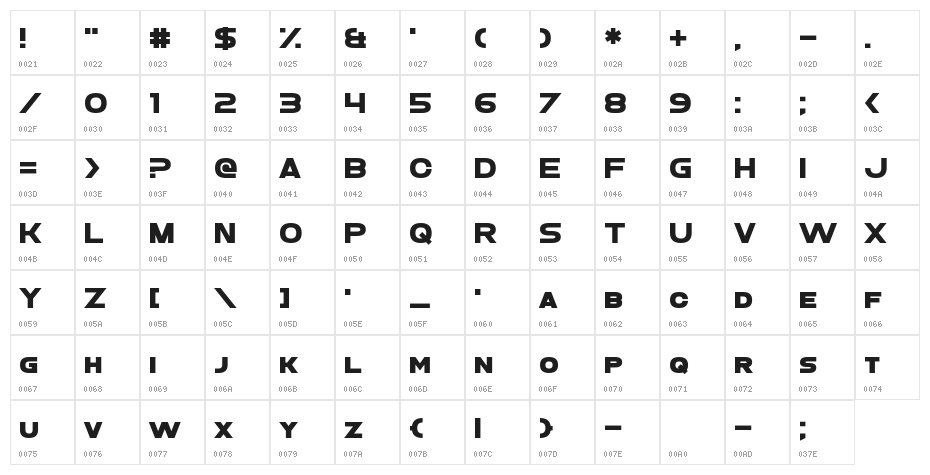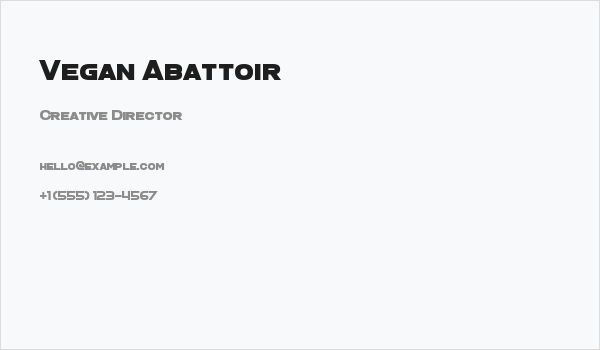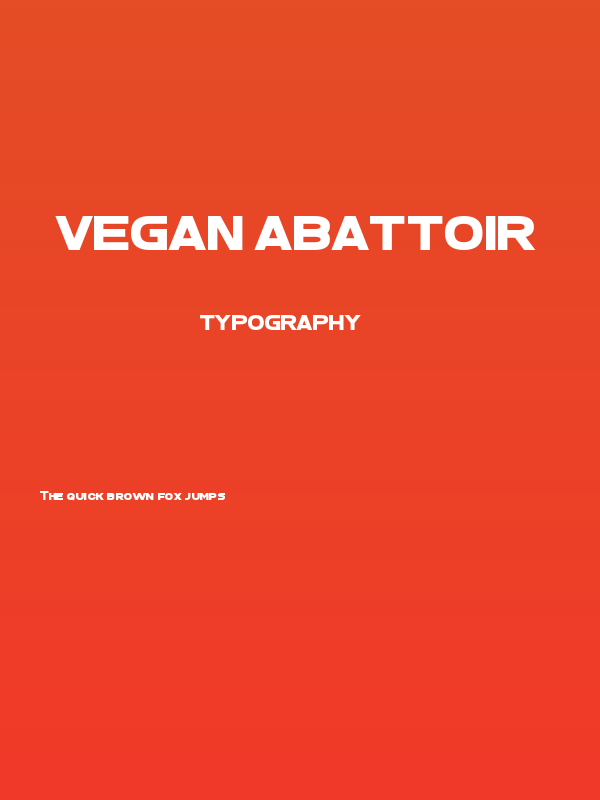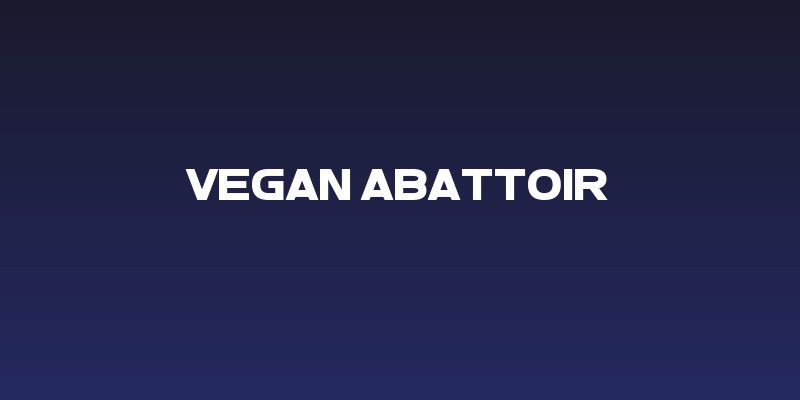
Vegan Abattoir Font
Vegan Abattoir Description
This font exhibits a bold and modern aesthetic with strong geometric shapes and a uniform stroke width. The uppercase letters are particularly striking, with a blocky and robust appearance that commands attention. The lowercase letters maintain the same boldness, ensuring consistency throughout the typeface. The numerals are equally bold, providing a cohesive look across all characters. Special characters are designed with the same geometric precision, making them suitable for various design needs. The overall style is clean and impactful, making it ideal for projects that require a strong visual presence.
| Proposed Projects | Ideal for branding, headlines, posters, and any design requiring a strong visual impact. |